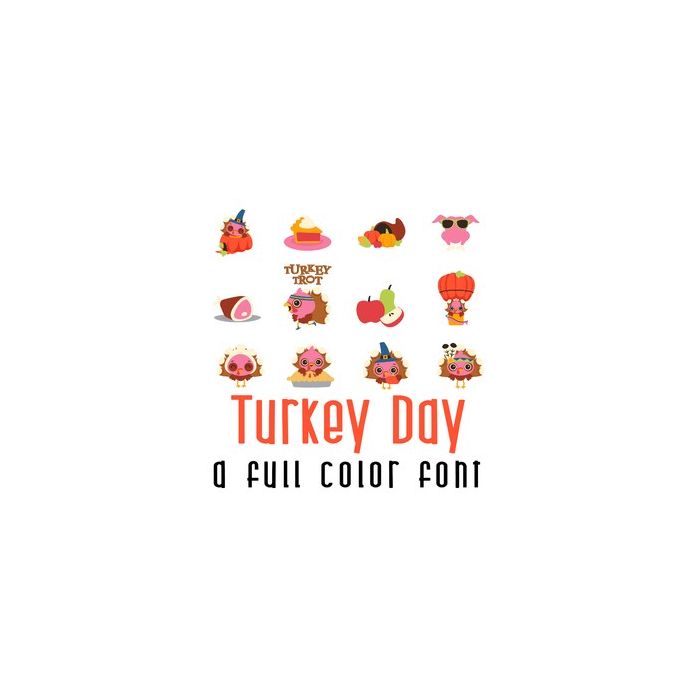
This adorable full-color doodlebat font features 26 cute Turkeys and Thanksgiving imagery. Perfect for the holiday, fun crafting, cardmaking, scrapbooking, planner stickers, decor, parties and more!